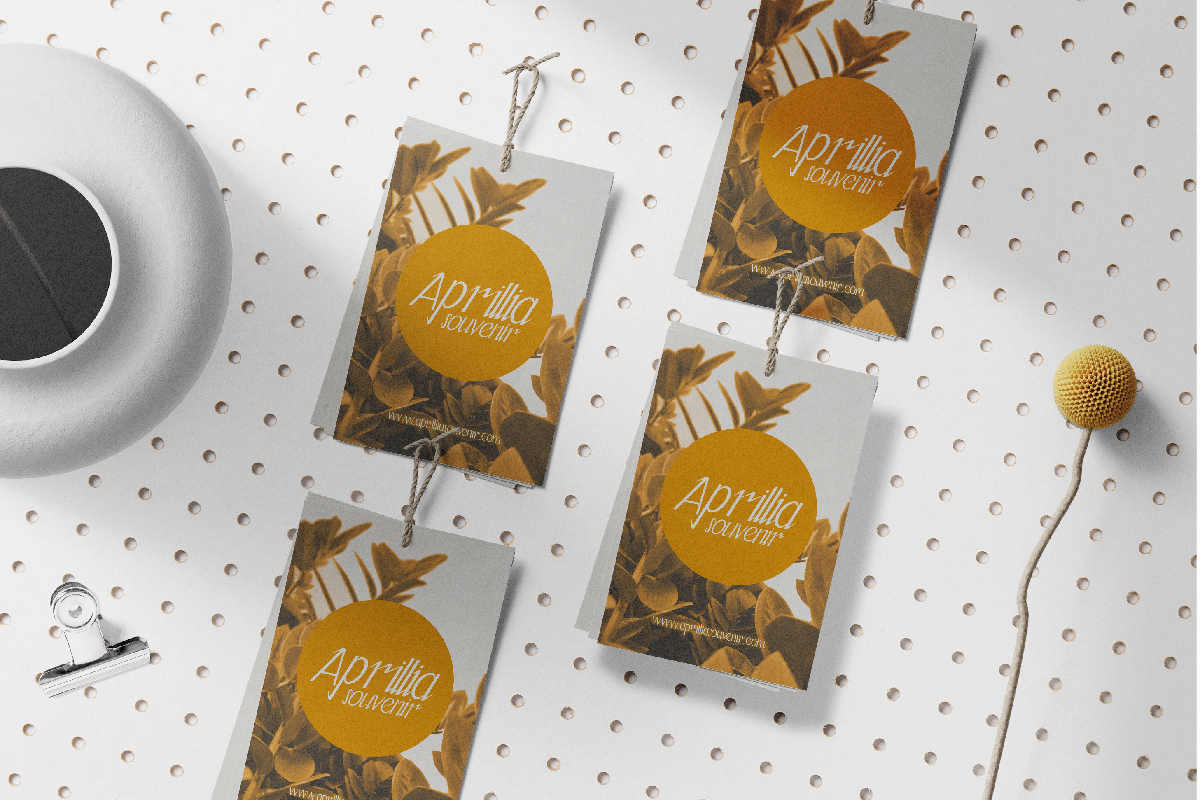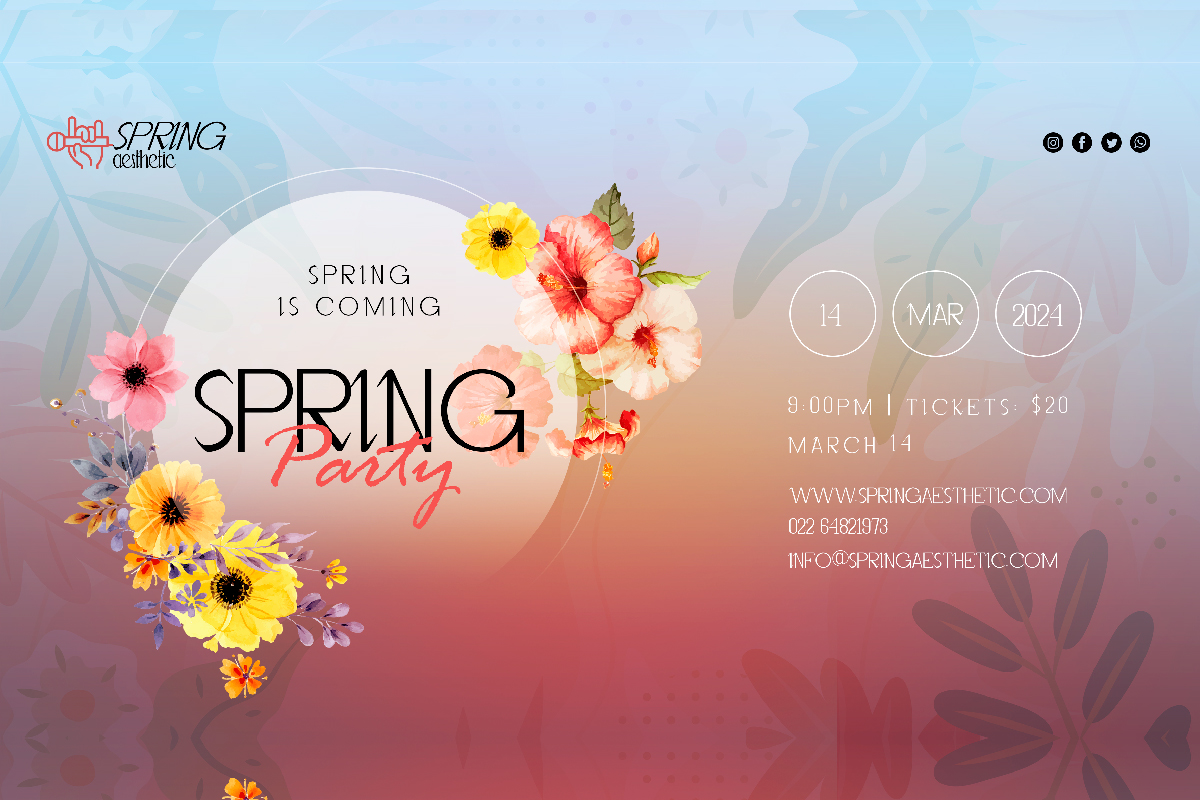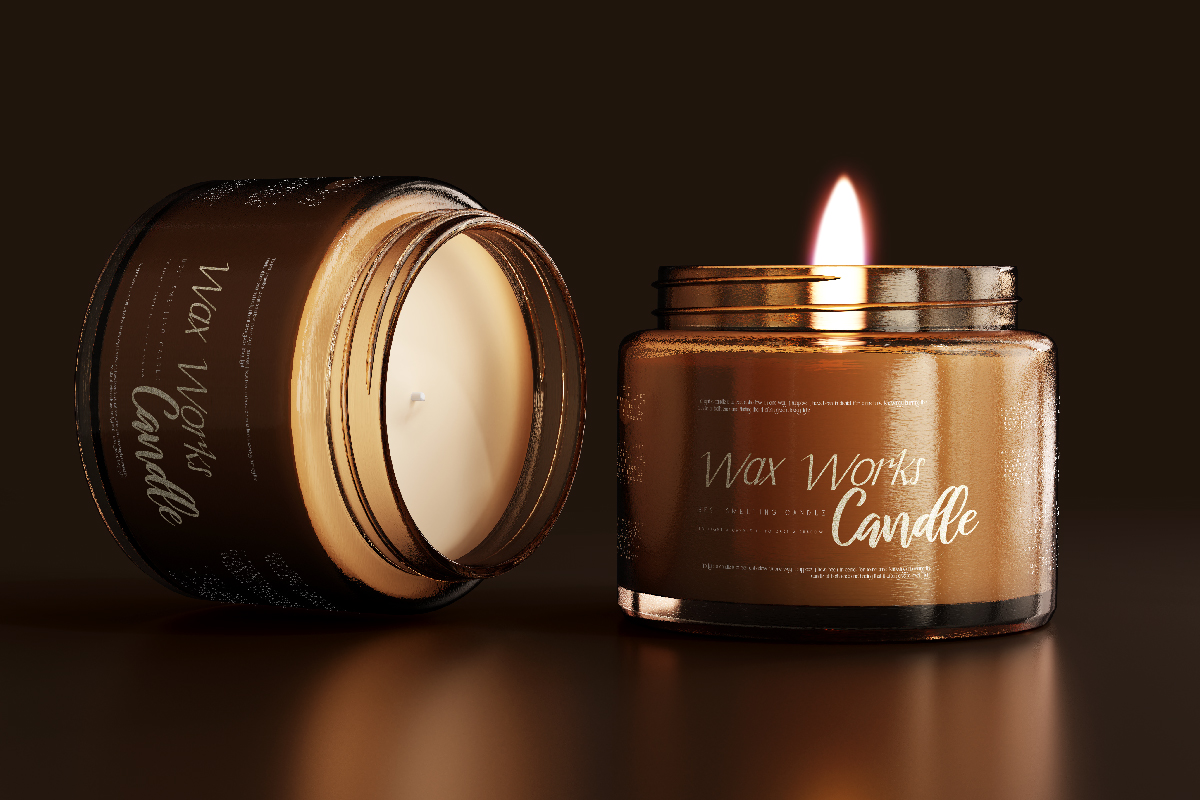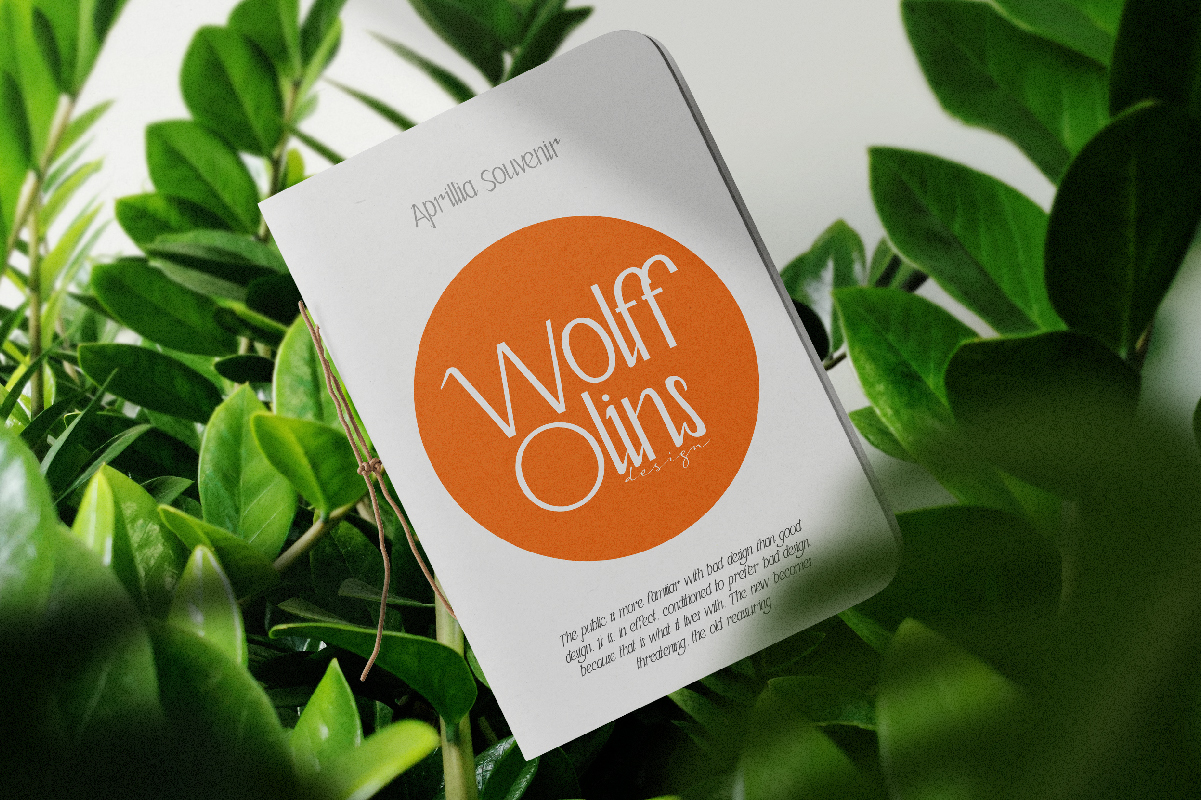
Gorgeous Baby Font
Gorgeous Baby Script Font
This is an elegant serif display font. This font has an elegant streamlined shape with slightly elongated edges. In addition, there are regular and italic styles to embellish your designs. It will be suitable for many industries such as accessories or souvenir, advertising, beauty product, fashion, jewelry, publishing, printing, and more!
Gorgeous Baby Font includes set of Uppercase and Lowercase Basic Characters, Numerals and Punctuation, and ligature to beautify the appearance of your project such as brand logo, brochure, cover, flyer, invitation, label, product packaging design, poster, quote, screen printing cloths or other fashion products, web or blog pages, etc.